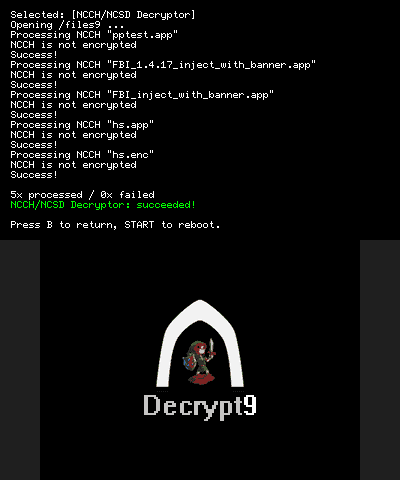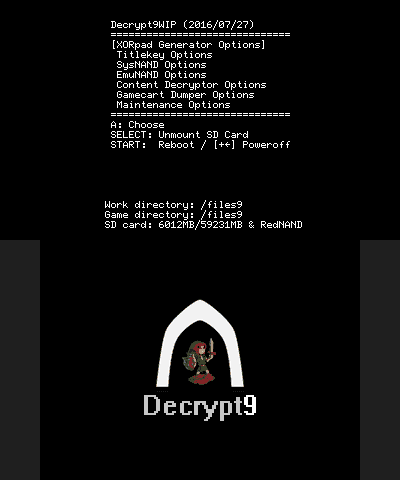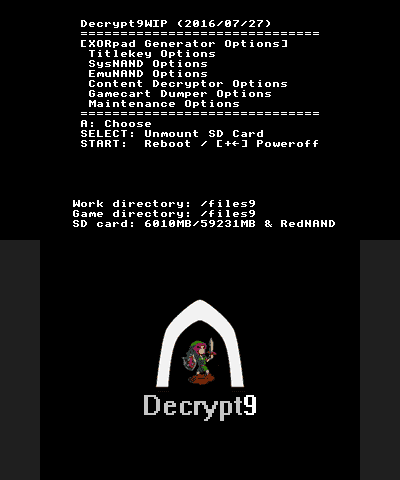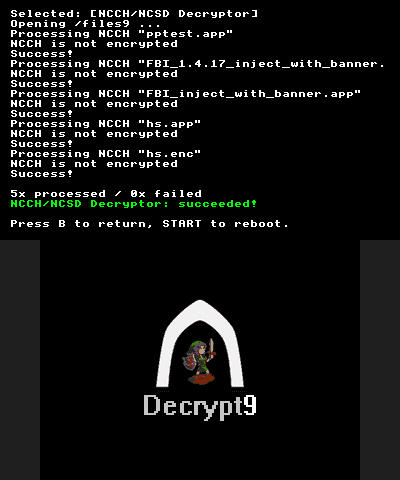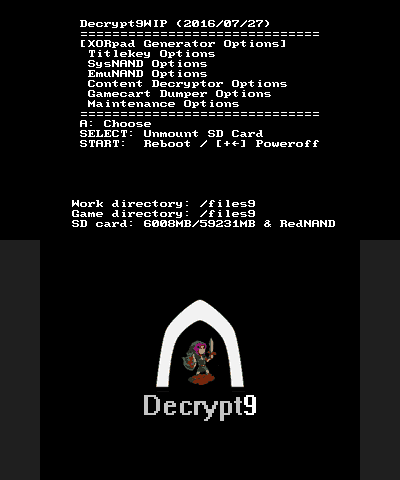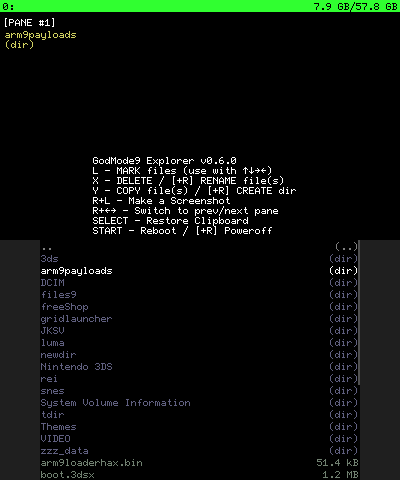
• Linux 6x10 font
• Acorn font
• Original font
I recently introduced a new 6x10 font into Decrypt9 (unreleased, you'd have to compile yourself) as default, and it turned out that was quite a controversial decision. While a lot of people liked it, a lot did not. In this thread you've got the chance to decide about the new default yourselves, via a poll. Screenshots below, and have fun!
Linux 6x10 font
Acorn font
Original font
Just to be clear: None of these fonts will be removed from the source code. You can always compile your own via make FONT=6X10 (or ACORN or ORIG) This poll is only for me to decide what font is the most popular and will hence be the future default.
You may also use this thread to discuss the pros / cons and to suggest alternatives. Keep in mind I can't use every font in D9. Maximum width is 8px, maximum height is 10px, and converting .TTF ones is difficult.
Slightly unrelated, but in GodMode9, the 6x10 font will be the new default (no changing this). That font gives me more room and also looks a lot better than the original one basically everwhere. See here:
I think the 6x10 font looks the best, and it's a good idea to use the same font for all the tools.
Uhm. I find ctrulib default font particularly easy to read because is a fixed size, big, bold font. I'm far sighted. I have in no way problems with the "linux 6x10" font (looks great!), but may you please add the option to make it bold? It would greatly help me read it on those pesky little screens.
Linux looks like a recovery for an android phone, i love it u.u
Original is nice too. Brings back memories of ol' DS homebrew.
Yep, it's really hard to read on a 2ds lol. Better hope you have 20/20 vision.
The original font that Decrypt9 has been using. They're perfect for the 3DS's resolution, plus the Linux 6x10 font (first picture) ...is just plain ugly in my opinion.
For one, the original font is already slightly hard to read on o3DS and 2DS screens.
It looks more like something you'd use in a beta before you have an actual release.
I recently introduced a new 6x10 font into Decrypt9 (unreleased, you'd have to compile yourself) as default, and it turned out that was quite a controversial decision. While a lot of people liked it, a lot did not. In this thread you've got the chance to decide about the new default yourselves, via a poll. Screenshots below, and have fun!
Linux 6x10 font
Acorn font
Original font
Just to be clear: None of these fonts will be removed from the source code. You can always compile your own via make FONT=6X10 (or ACORN or ORIG) This poll is only for me to decide what font is the most popular and will hence be the future default.
You may also use this thread to discuss the pros / cons and to suggest alternatives. Keep in mind I can't use every font in D9. Maximum width is 8px, maximum height is 10px, and converting .TTF ones is difficult.
I can hardly see the difference between Acorn & original. I prefer them over linux, since the linux is very small & thin for me. Please keep in mind there might be people who have glasses/contacts etc. that make things smaller too, some of them might not be able to read without glasses etc...
P.S. Bold linux might be more readable though!
Uhm. I find ctrulib default font particularly easy to read because is a fixed size, big, bold font. I'm far sighted. I have in no way problems with the "linux 6x10" font (looks great!), but may you please add the option to make it bold? It would greatly help me read it on those pesky little screens.
Can't use the ctrulib font, sorry. That's not in the correct format.
Yeah I know. I was just defining a vague guideline for what I can most confortable read on the screens, in this poll that might be original format. Also I agree those fonts are usually not the most visually pleasant.
The bold font comment was just a quick workaround for a high contrast mode for more visually impaired people than me.